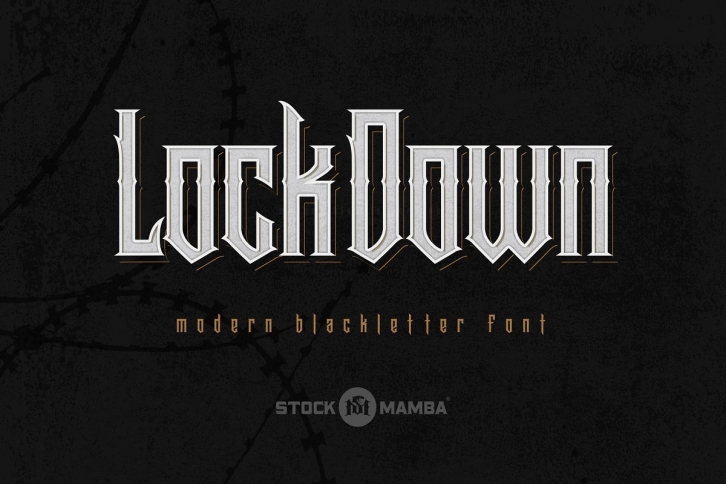
Lock Down is a modern blackletter font designed to be used a display font for tattoo shops, t-shirts, posters, drink labels, etc. This font is not multilingual, but does contain the basic Latin characters, numbers and punctuation. Bonus set of matching flourish design elements included as well.